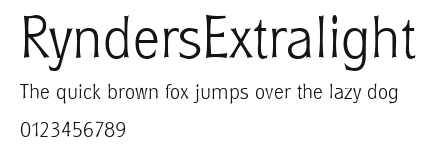
About RyndersExtralight.ttf
RyndersExtralight.ttf is a modern, elegant sans-serif font designed for ultimate readability and visual harmony. Perfect for branding, headlines, web design, and print materials.